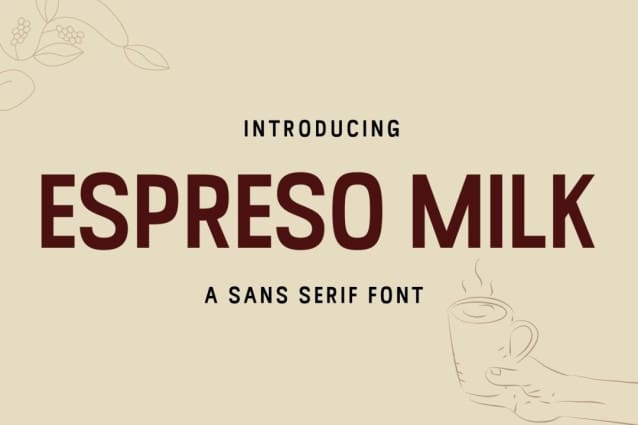
Espreso Milk Font
Espreso Milk Font a bold statement with our latest sans-serif font. With its clean lines and modern appeal, this font is sure to turn heads and leave a lasting impression. Perfect for headlines, logos, and any design that demands attention. It is both functional and stylish, making it a versatile choice for a wide range of design projects.